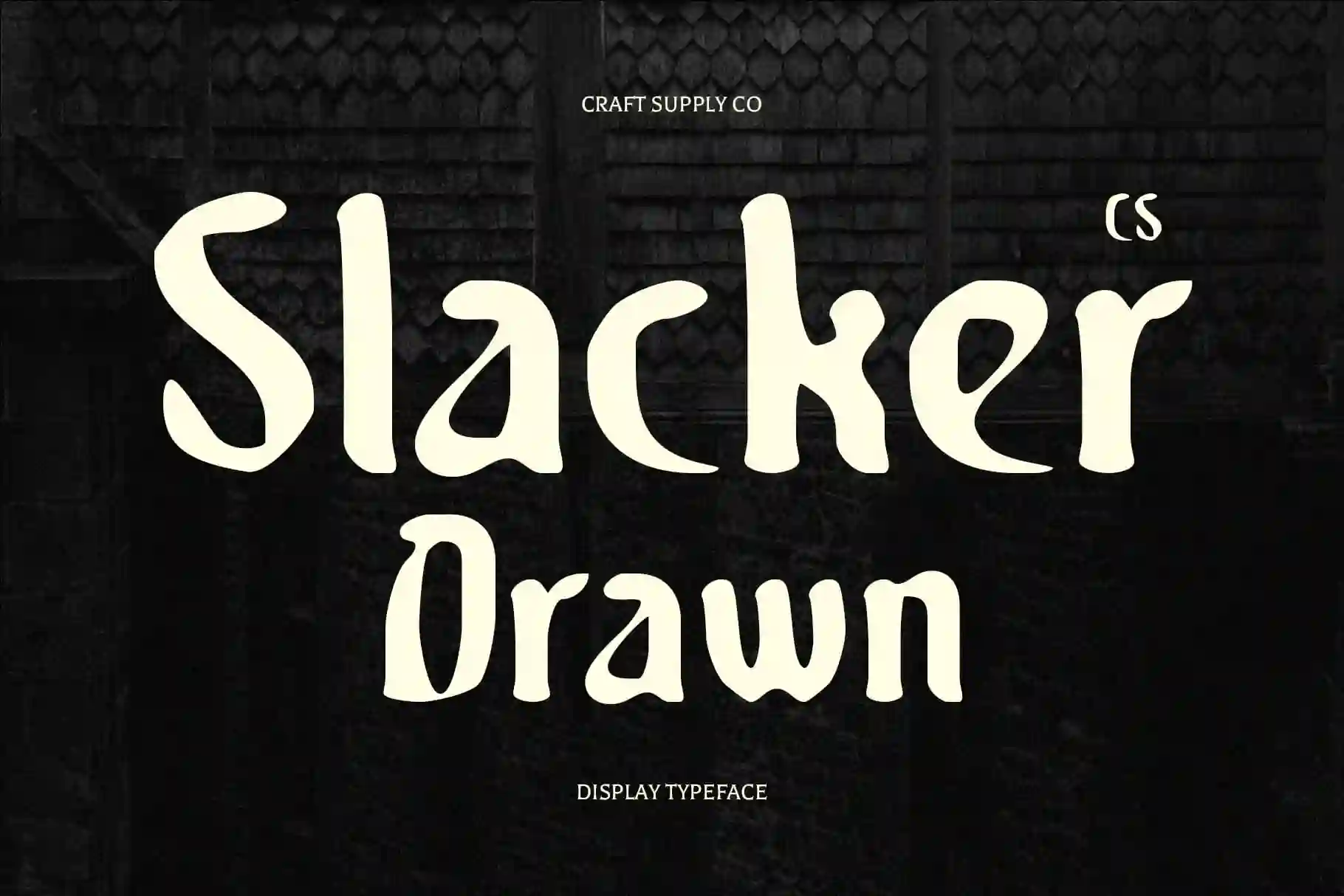
CS Slacker Drawn – Modern Blackletter with Artistic Edge
Modern Blackletter with Handmade Personality
This font is a modern blackletter font that breaks tradition with bold forms and unique shapes. While it inherits the dramatic essence of historical blackletter, its drawn texture adds a handmade and artistic quality, giving each letter character and depth. This makes the font both classic and contemporary, suitable for designs.
Bold Shapes with Distinctive Impact
The bold strokes and sharp details of font create a commanding presence in any layout. Unlike rigid traditional blackletter fonts, its form embraces individuality, blending structure with expressive design. This combination allows designers to capture attention instantly while maintaining a sense of refinement. Whether used for large display headlines or branding elements.